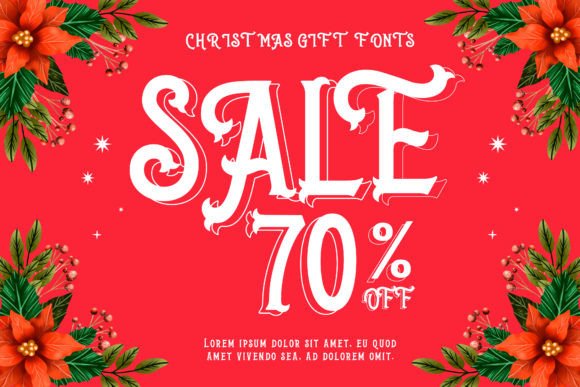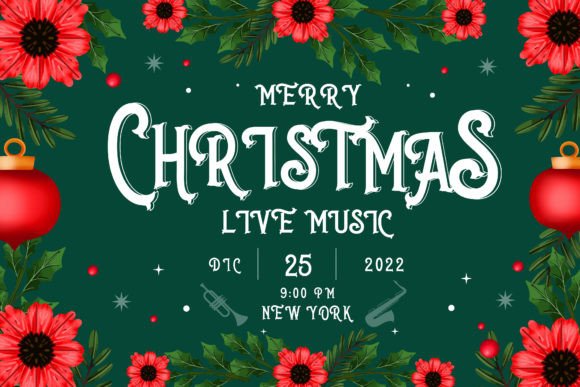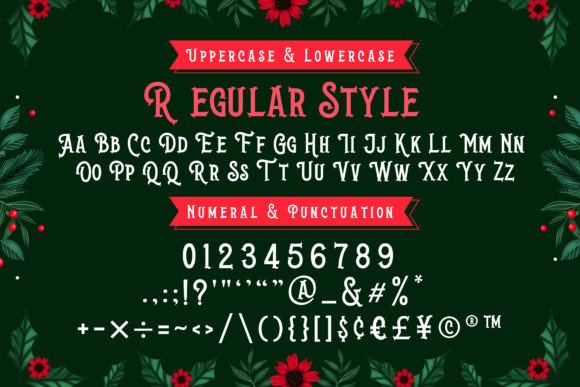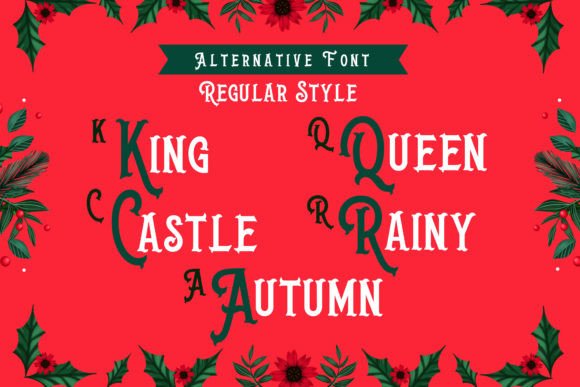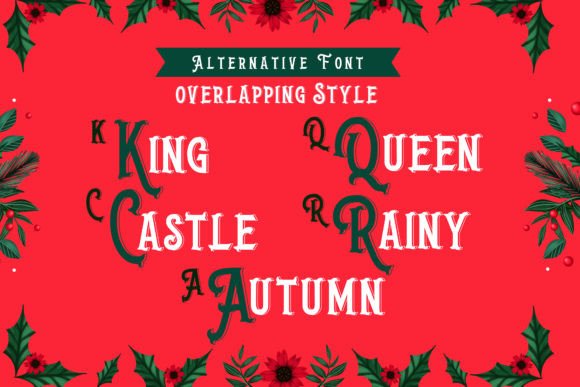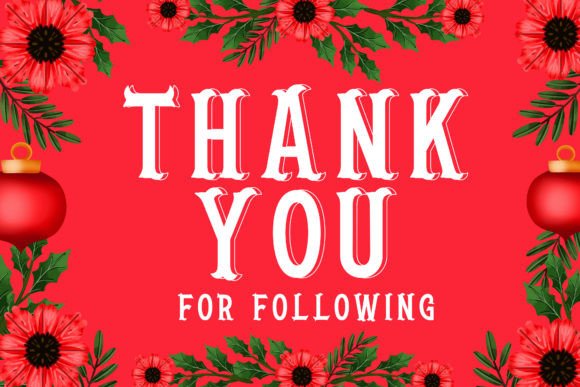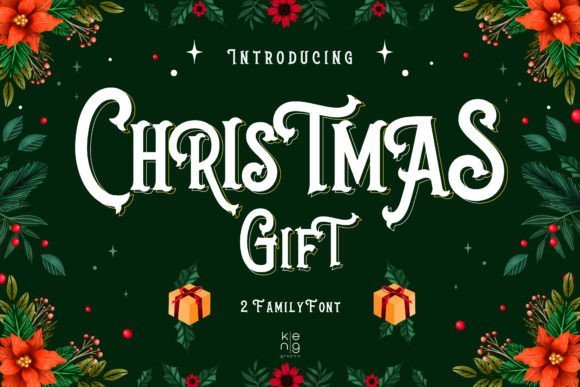
Introducing Christmas Gift Font: The Ultimate Holiday Display Font
Are you looking for a font that captures the essence of the holiday season? Look no further than Christmas Gift Font, a fun and festive display font that’s sure to make your designs stand out. With its unique and playful style, Christmas Gift Font is perfect for adding a touch of holiday cheer to your projects.
What Makes Christmas Gift Font So Special?
Christmas Gift Font is a carefully crafted display font that’s designed to bring a sense of joy and festivity to your designs. Its bold and playful style makes it instantly recognizable, and it’s sure to attract attention wherever it’s used. Whether you’re creating holiday cards, love shirts, posters, movie titles, or social media posts, Christmas Gift Font is the perfect choice.
Perfect for Holiday Designs
Christmas Gift Font is specifically designed for holiday designs, and it’s perfect for creating a wide range of festive projects. Here are just a few ideas for how you can use Christmas Gift Font:
- Holiday cards: Create beautiful and festive holiday cards that will make your loved ones feel special.
- Love shirts: Design fun and playful love shirts that are perfect for Valentine’s Day or any other occasion.
- Posters: Create eye-catching posters that will grab attention and spread holiday cheer.
- Movie titles: Use Christmas Gift Font to create movie titles that are sure to stand out.
- Social media posts: Add a touch of holiday magic to your social media posts with Christmas Gift Font.
Why Choose Christmas Gift Font?
There are many reasons why Christmas Gift Font is the perfect choice for your holiday designs. Here are just a few:
- Unique style: Christmas Gift Font has a unique and playful style that’s sure to make your designs stand out.
- Easy to read: Despite its bold and playful style, Christmas Gift Font is easy to read and understand.
- Versatile: Christmas Gift Font can be used for a wide range of projects, from holiday cards to movie titles.
- Cozy vibe: Christmas Gift Font has a cozy and inviting vibe that’s perfect for the holiday season.
Tips for Using Christmas Gift Font
Here are a few tips for getting the most out of Christmas Gift Font:
- Use it sparingly: While Christmas Gift Font is perfect for headlines and titles, it’s best to use it sparingly to avoid overwhelming your design.
- Pair it with other fonts: Christmas Gift Font pairs well with a wide range of other fonts, so feel free to experiment with different combinations.
- Experiment with colors: Christmas Gift Font looks great in a wide range of colors, so don’t be afraid to experiment and find the perfect hue for your design.
Christmas Gift Font is a fun and festive display font that’s perfect for adding a touch of holiday cheer to your designs. With its unique and playful style, it’s sure to make your projects stand out and attract attention. Whether you’re a designer or a crafter, Christmas Gift Font is a must-have for the holiday season.